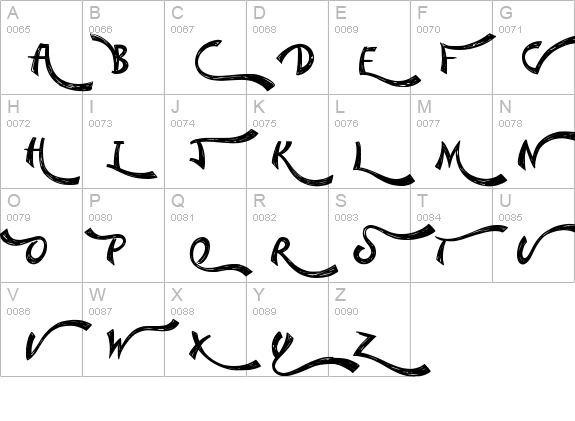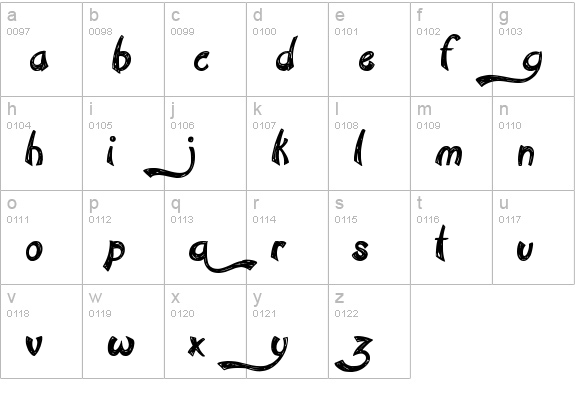
Introducing Cow Jump font, a playful and dynamic typeface that will bring a burst of energy to your designs. With its curvy and whimsical letterforms, Cow Jump is perfect for adding a touch of fun and creativity to any project. This font is not only visually appealing but also incredibly versatile. Whether you're working on a children's book, a logo design, or a social media graphic, Cow Jump will add a unique and eye-catching element that is sure to captivate your audience. The best part? Cow Jump font is completely free! That's right, you can download this amazing font at no cost from FontsMarket.com. This means that you can enjoy all the benefits of Cow Jump without breaking the bank. But don't let the price tag fool you. Despite being free, Cow Jump font packs a punch when it comes to quality. The characters are expertly crafted, ensuring smooth lines and clean edges. The glyphs are well-balanced, making it easy to create visually appealing compositions. Whether you're a professional designer or a hobbyist, Cow Jump font is a must-have in your font library. Its versatility and playful nature make it suitable for a wide range of projects, from branding and packaging to invitations and posters. So why wait? Go ahead and download Cow Jump font for free at FontsMarket.com. Start adding a touch of whimsy and creativity to your designs today!